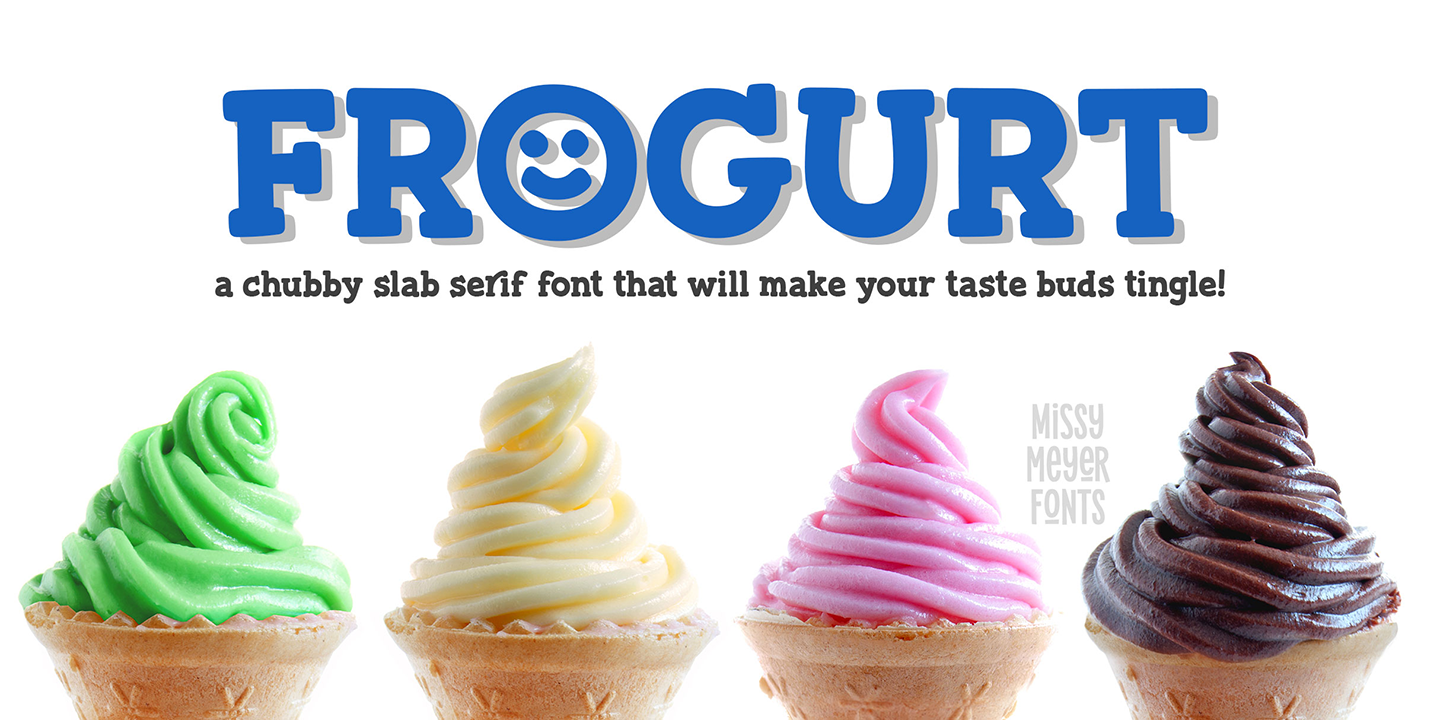
Frogurt Font Free Download is a playful and bubbly display font that brings sweetness and fun into every letterform. Please note that you must purchase this font for commercial use. It is available as a free download for personal and testing purposes only.
You can use Frogurt Font in kid-friendly branding, ice cream shop signage, frozen yogurt packaging, summer event posters, toy product labels, fun social media posts, and cheerful birthday invitations. Its rounded edges and energetic vibe make it ideal for anything lighthearted and joyful.
What makes Frogurt so exciting is its ability to radiate happiness at first glance. With its chubby curves and whimsical character, it adds a layer of fun and friendliness to any design. It’s the kind of font that says, “Let’s have some fun!” while still staying clean and readable.
The Frogurt Font family includes a tasty selection of styles like Frogurt Regular, Frogurt Bold, Frogurt Outline, and Frogurt Soft, allowing designers to mix flavors (I mean, styles!) for extra visual delight.
So if you're looking for a typeface that adds a scoop of sweetness and a drizzle of joy to your project, Frogurt Font Free Download is your new best friend. Download it today and watch your designs come alive with a smile!